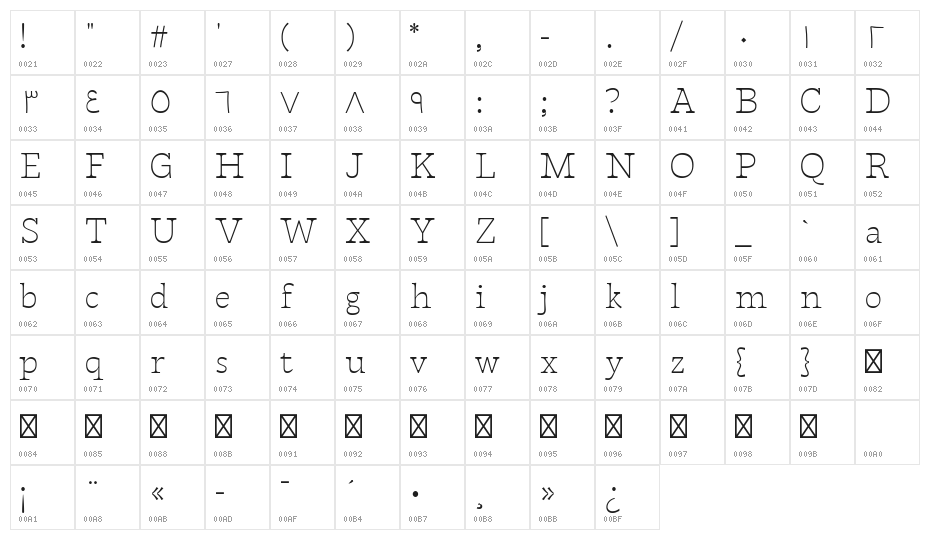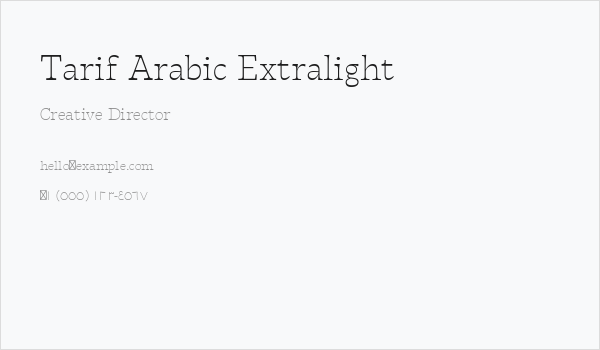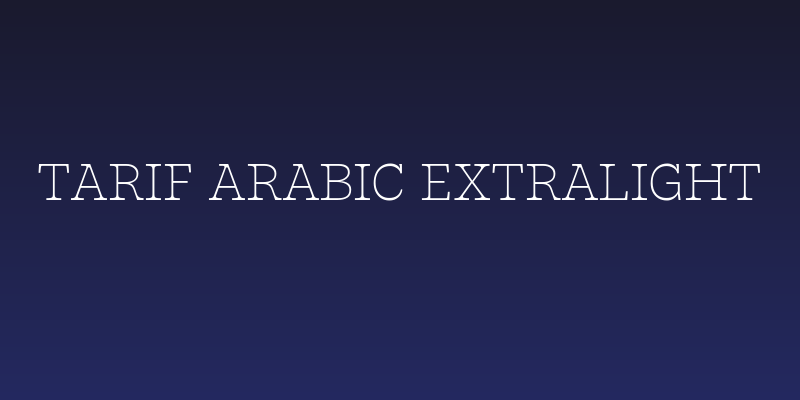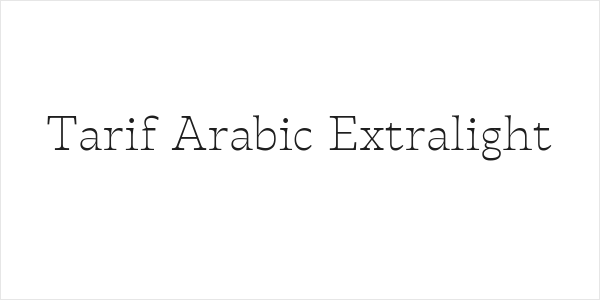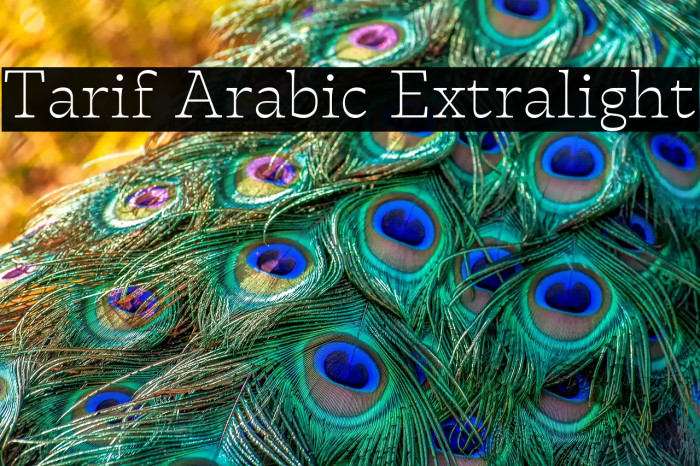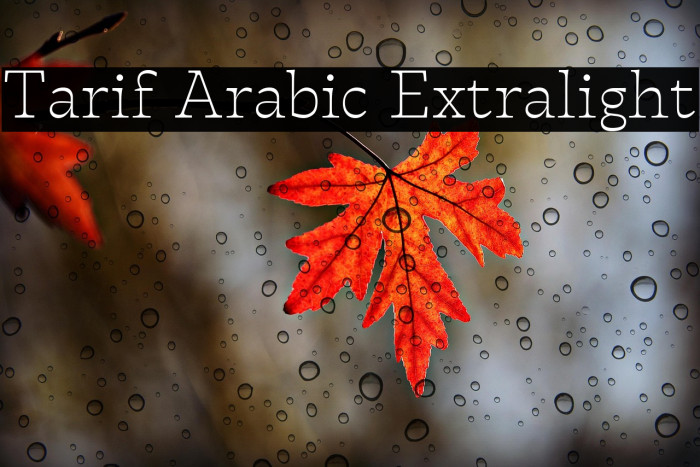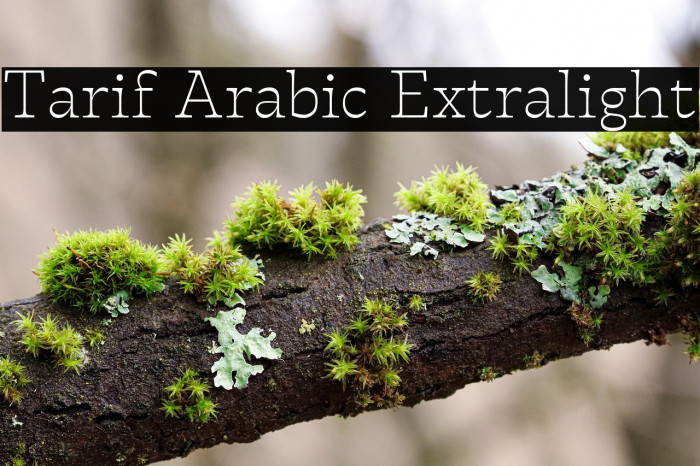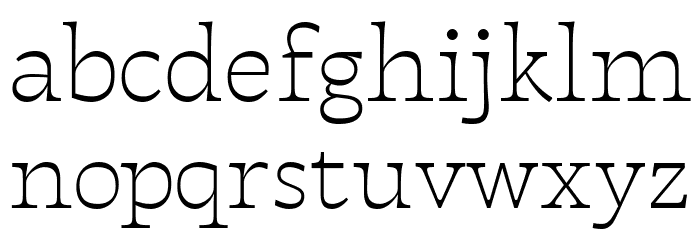
Tarif Arabic Extralight Font
Tarif Arabic Extralight Description
This font features a clean and elegant design with thin, consistent strokes that give it an airy and sophisticated appearance. The uppercase letters are tall and slightly narrow, while the lowercase letters maintain a balanced proportion, enhancing readability. The numerals are distinct and align well with the overall style, and the special characters are crafted with precision, adding to the font's versatility. The font's design is modern yet timeless, making it suitable for a variety of applications.
| Proposed Projects | Ideal for branding, editorial design, and minimalist web design projects. |